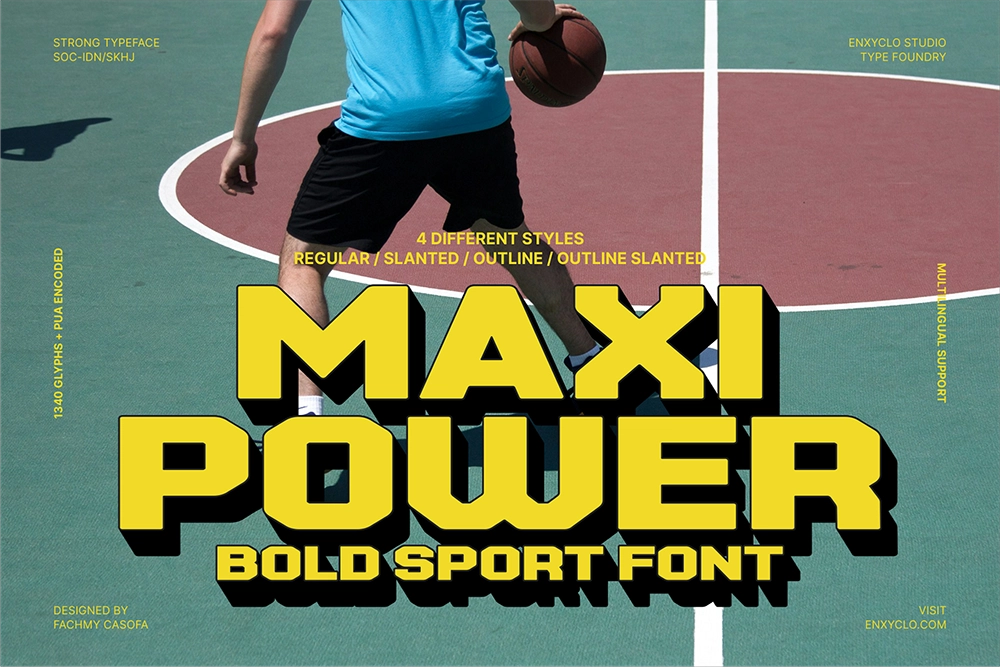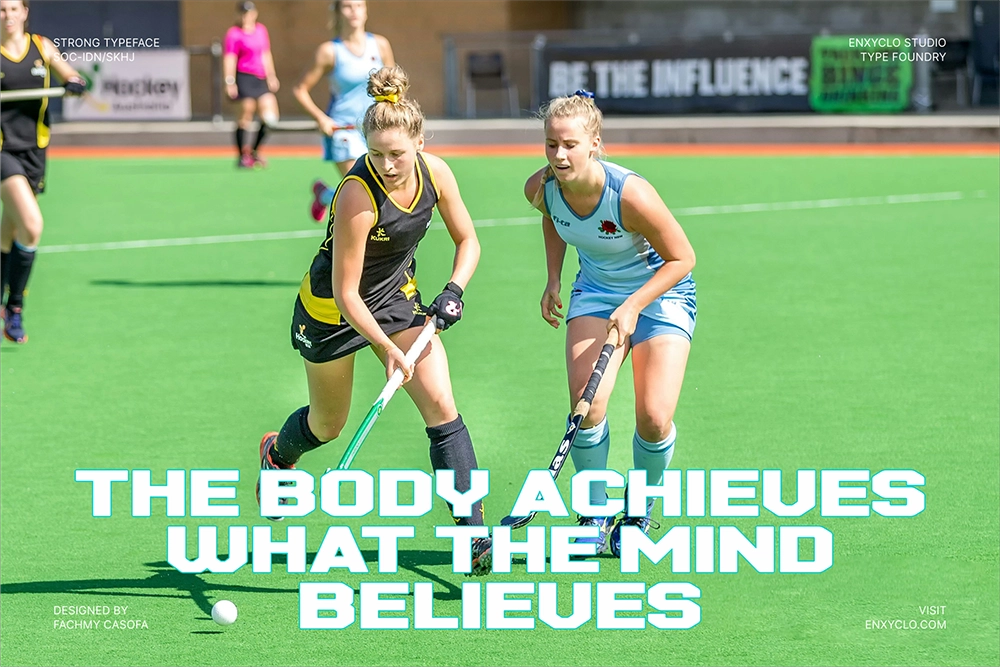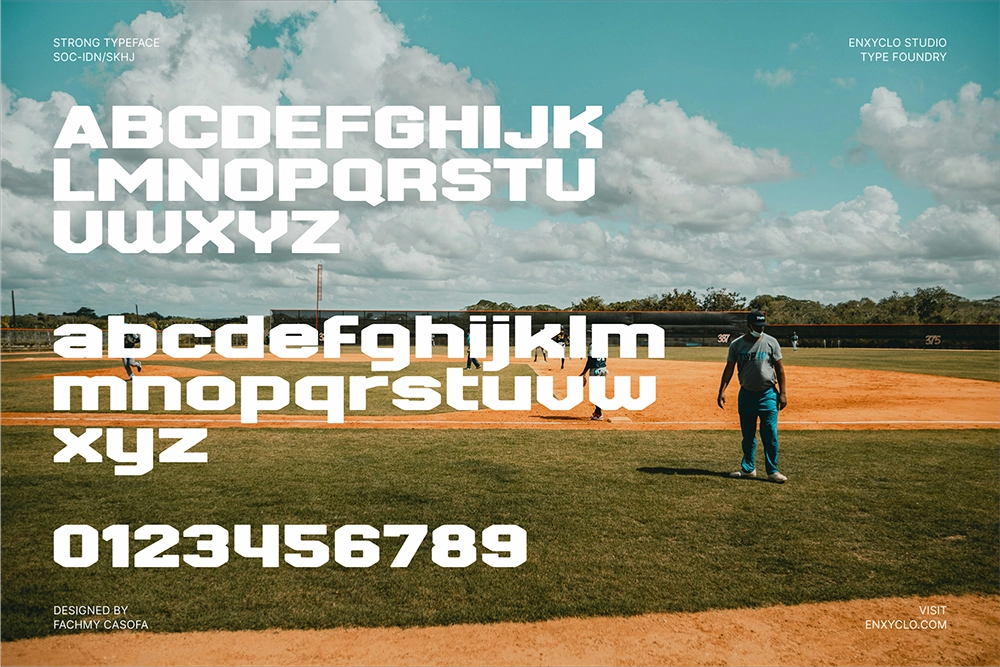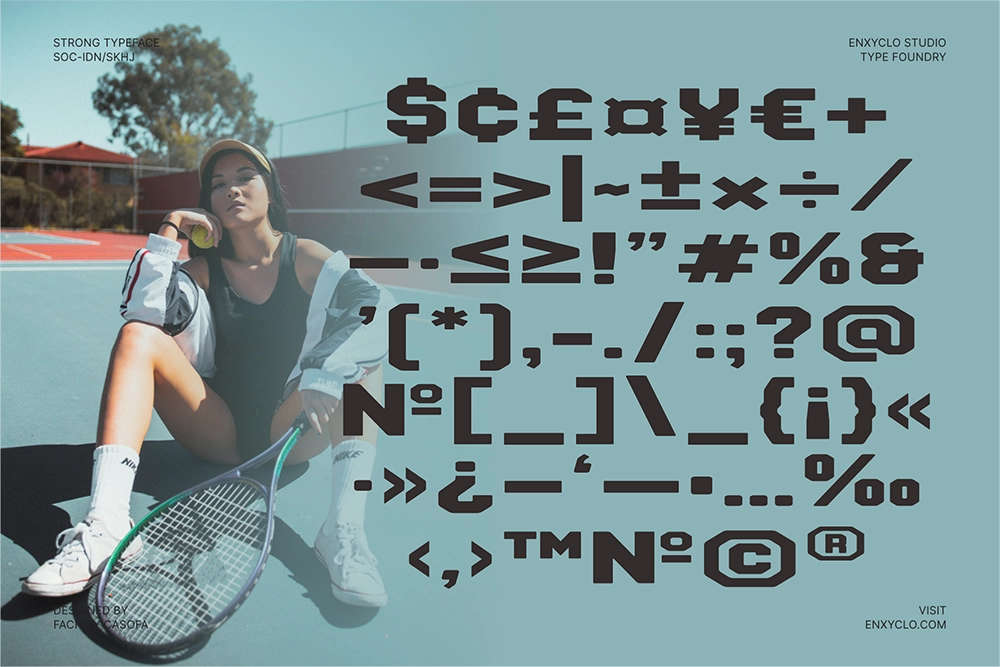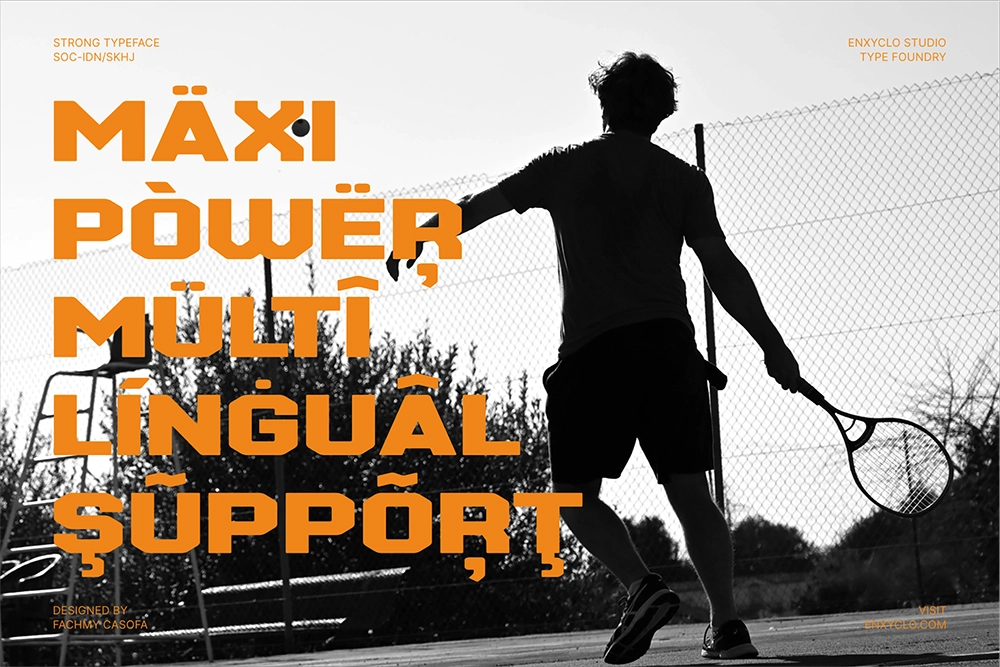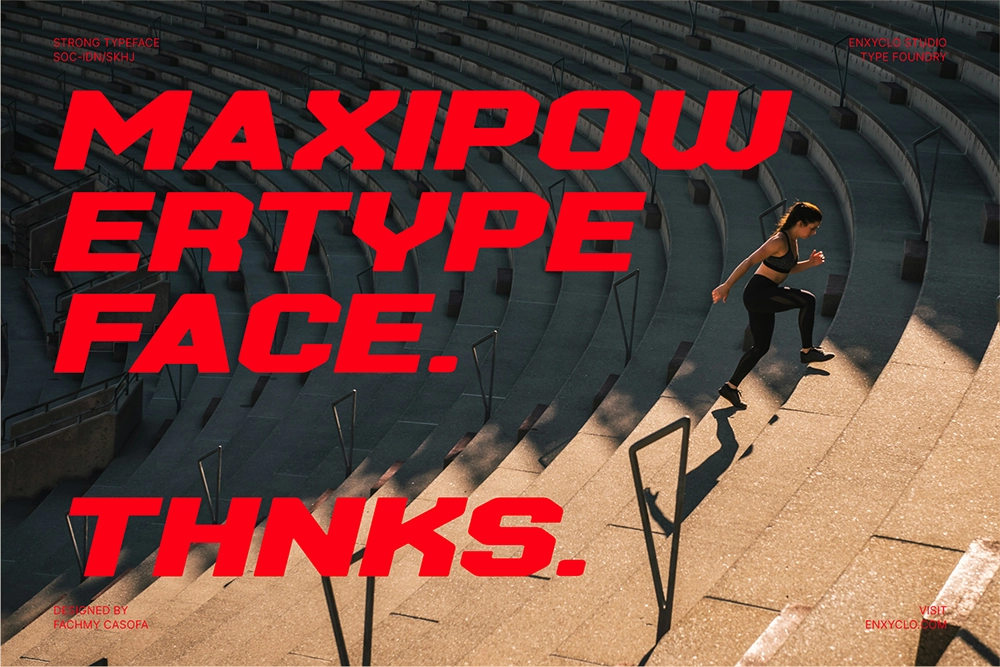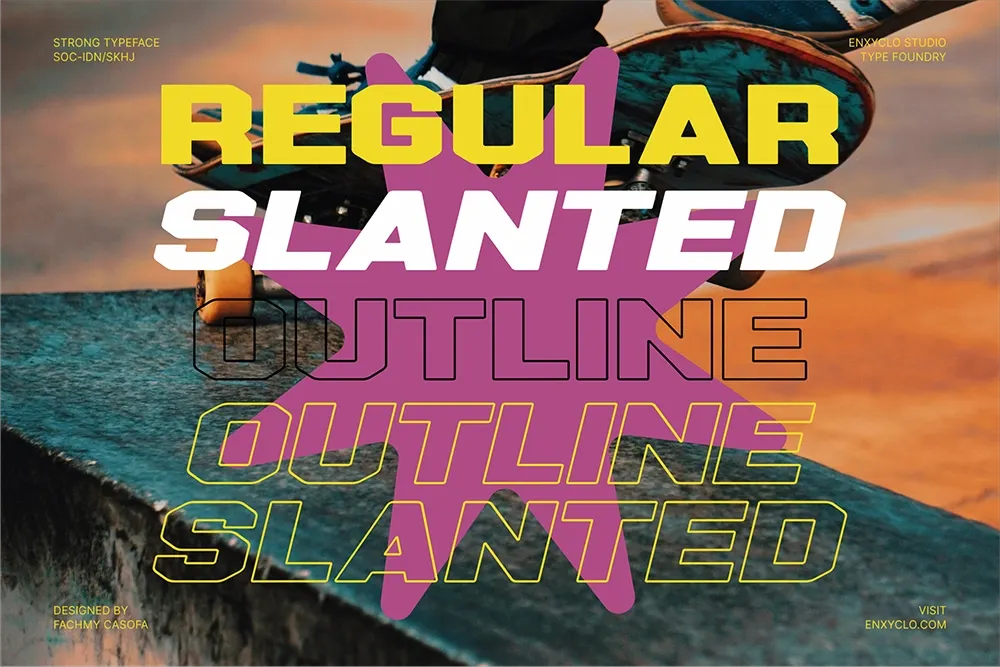
Maxi Power - Bold Sport Font
Maxi Power – Bold Sport Font is a powerful display typeface designed to capture the energy and intensity of sports, fitness, and gym-inspired visuals. With its bold structure, strong letterforms, and dynamic presence, Maxi Power is built to command attention in headlines, logos, posters, and branding. The font combines modern athletic aesthetics with confident typography, making it perfect for projects that require strength, motion, and impact.
Created to perform exceptionally well at large sizes while remaining clear and readable in smaller applications, Maxi Power offers versatility across both print and digital designs. Whether you're designing gym branding, esports graphics, sports event posters, merchandise, or bold social media visuals, this typeface brings a powerful and energetic character that helps your designs stand out.
• 4 Styles: Regular, Slanted, Outline, Outline Slanted
• Uppercase & Lowercase Characters
• Numerals, Punctuation & Symbols
• Strong Athletic Display Style